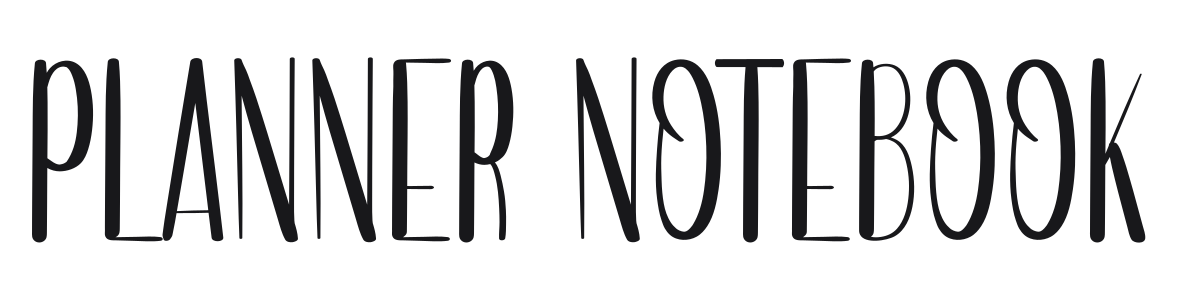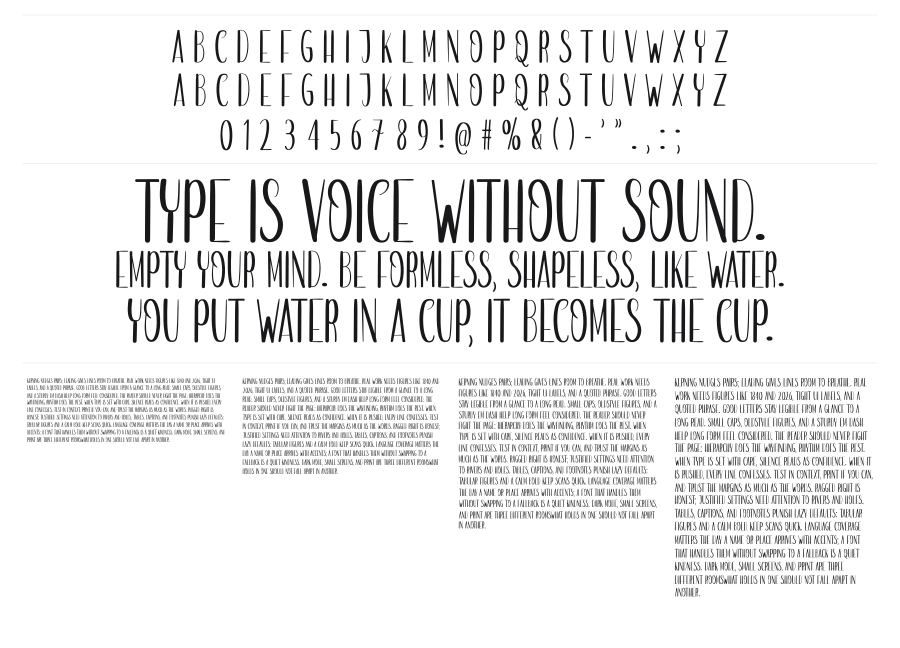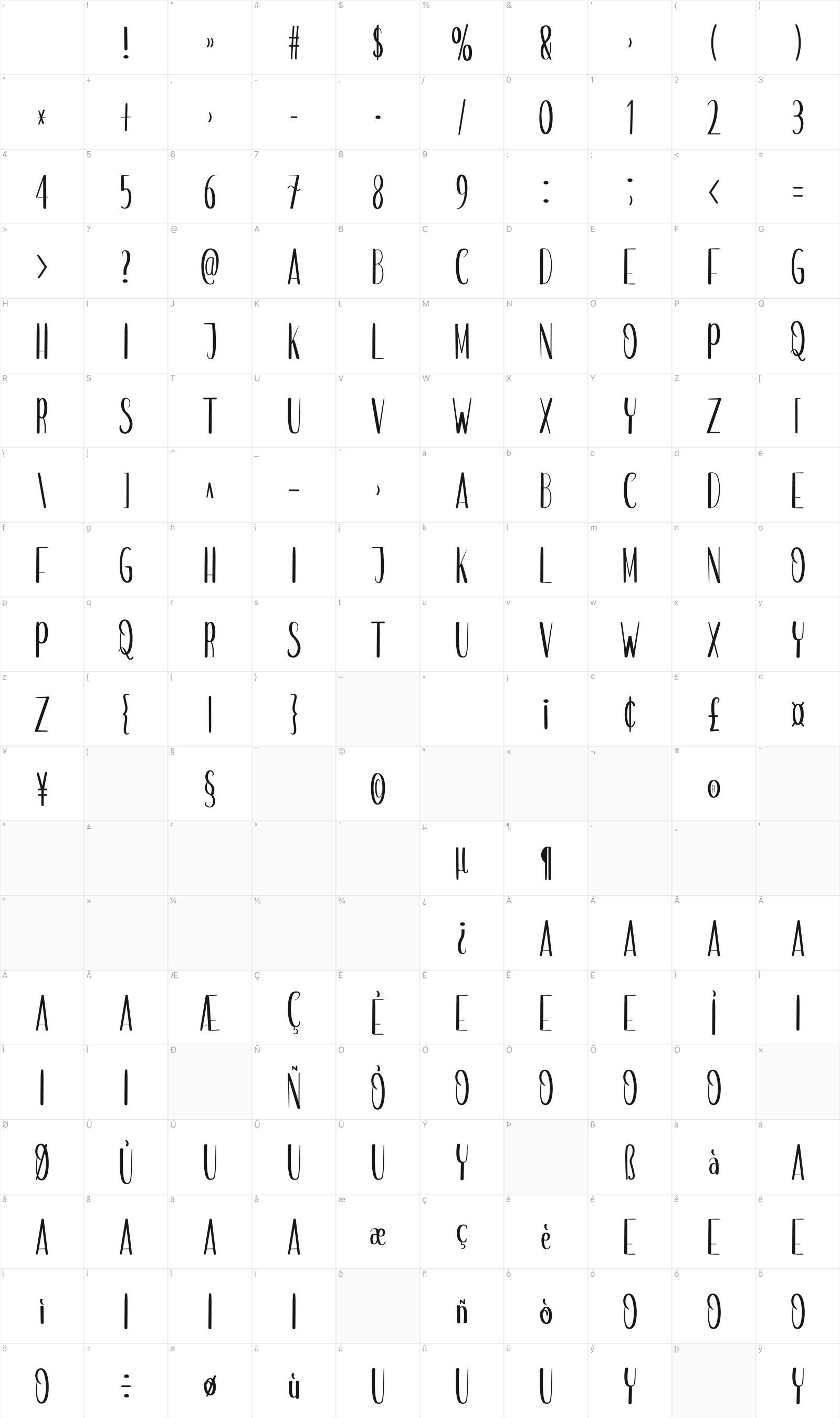
Planner Notebook
Planner Notebook is a tall condensed display face that blends calligraphic warmth with a clean contemporary structure. The strokes shift subtly in weight across each character, giving a hand-lettered feel without sacrificing legibility at headline sizes. It lives comfortably in stationery, titles, branding, and anywhere a bit of personality is welcome.